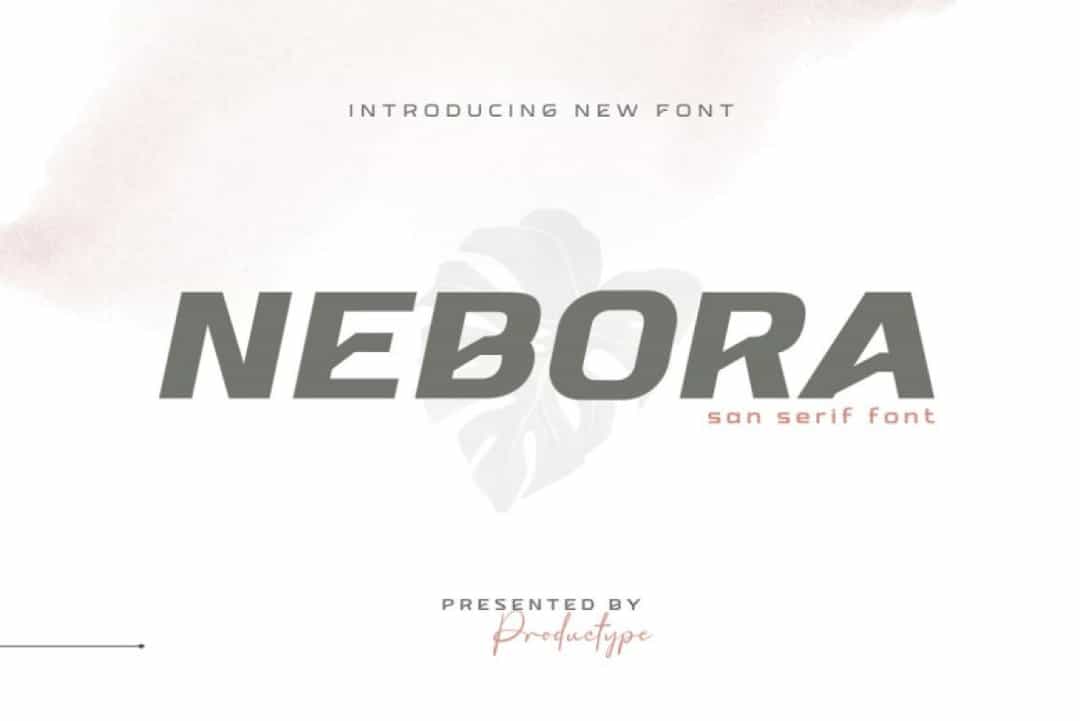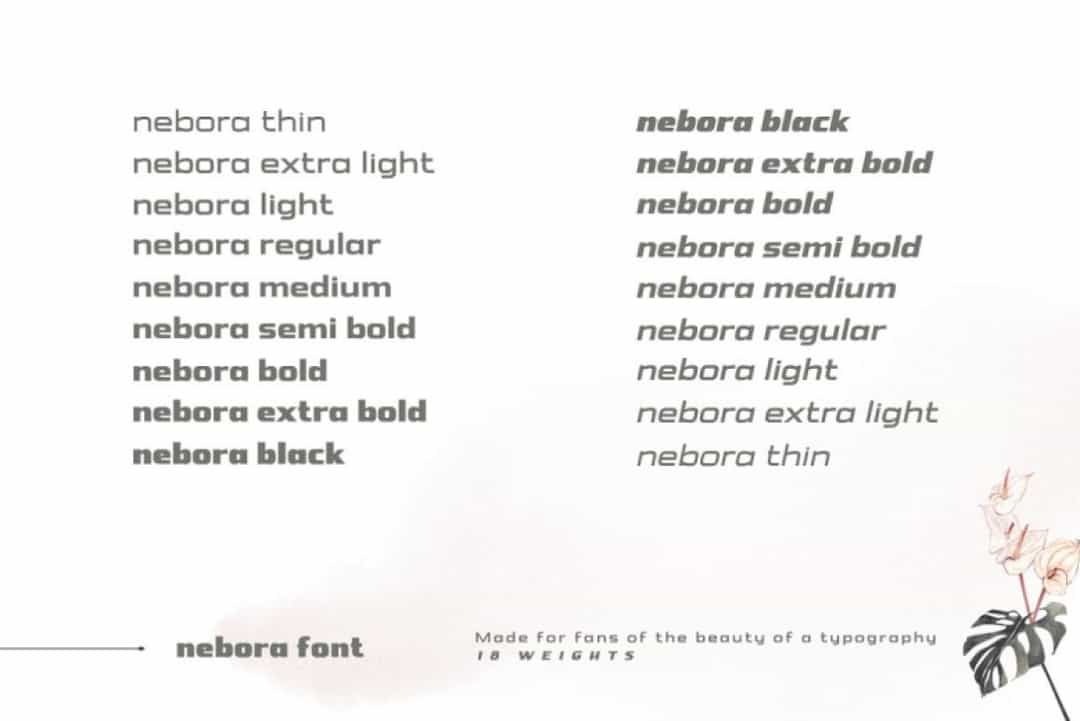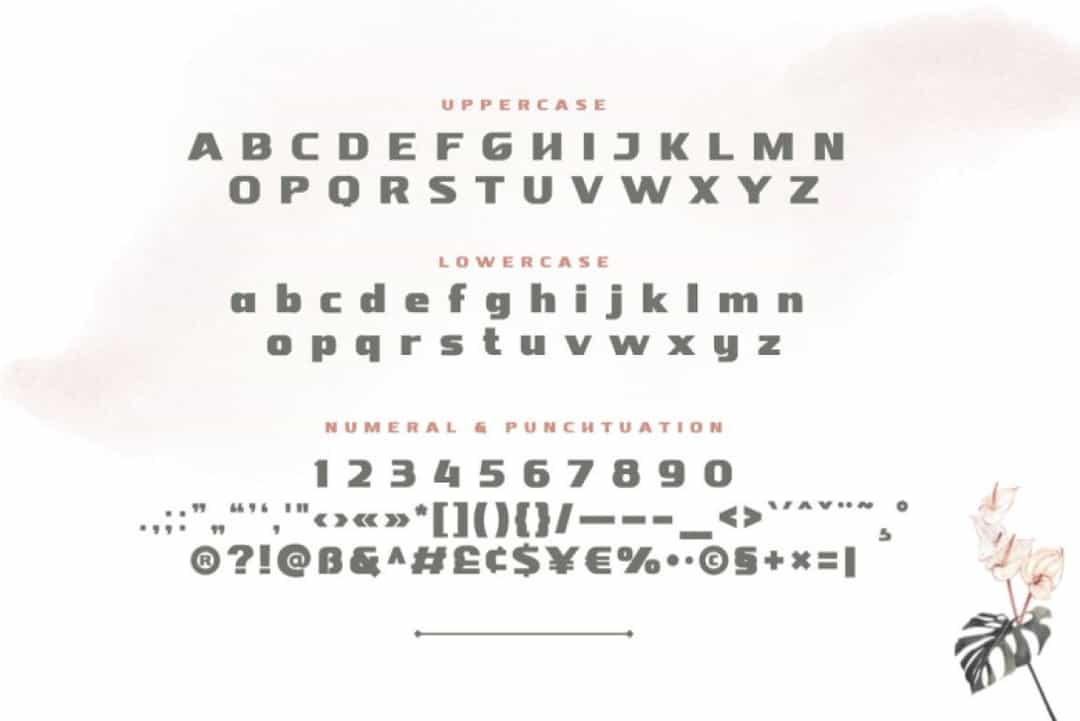
Discover Nebora Font, part of the Sans Serif Display collection—a versatile and unique font perfect for adding a personal touch to your projects. Download it for free and enjoy crafting designs with style, from invitations to social media posts. This font is available exclusively for personal use, giving you the freedom to create without limits. Unlock your creativity with Nebora Font today!
Nebora Sans Serif Font is one of the fonts that makes an immediate statement with its simple lines and an emphasis on negative space. Perfect for headlines in magazines packaging products for sale posters and more this font draws its inspiration from the Arctic’s breathtaking beauty and clean environment. When used in lowercase, Nebora exudes charm while in capital letters she becomes powerful and elegant.